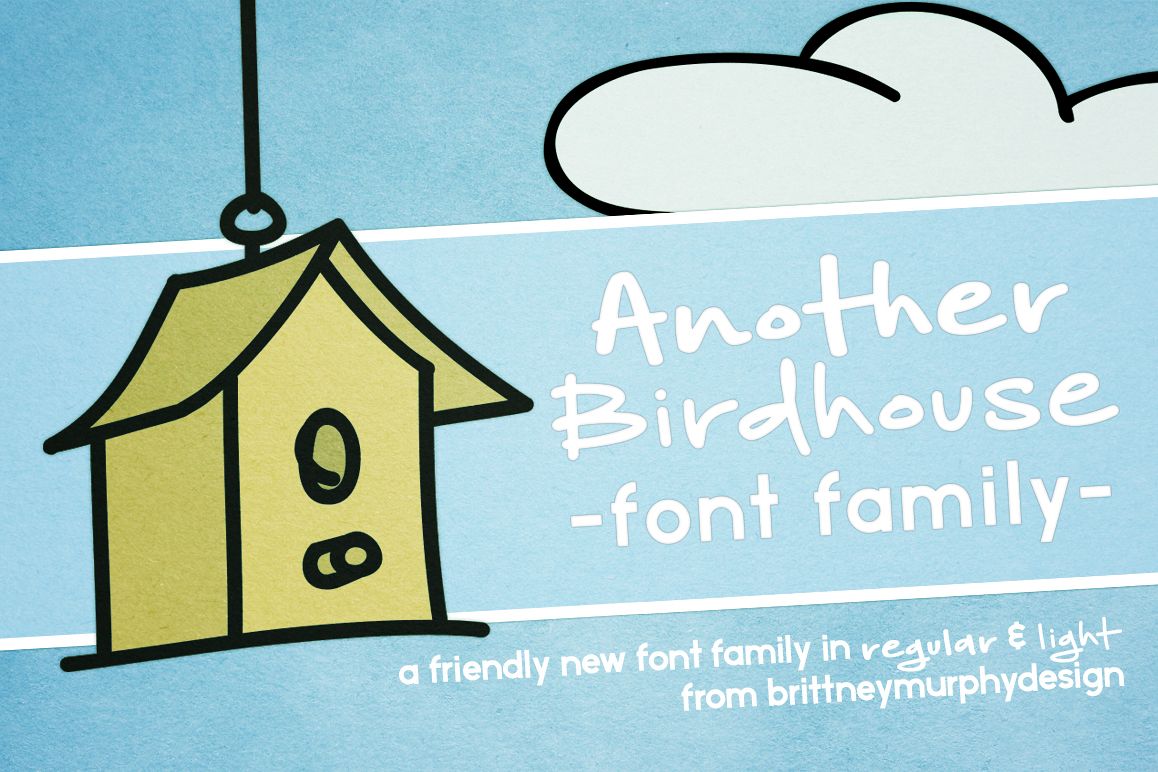
Another Birdhouse
Another Birdhouse Light
Another Birdhouse
Another Birdhouse is a friendly, handwritten font. Great for cards! This font family includes two weights: regular (weighted) and light.Both fonts have 343 characters, with extended Latin characters, accents and currency symbols.